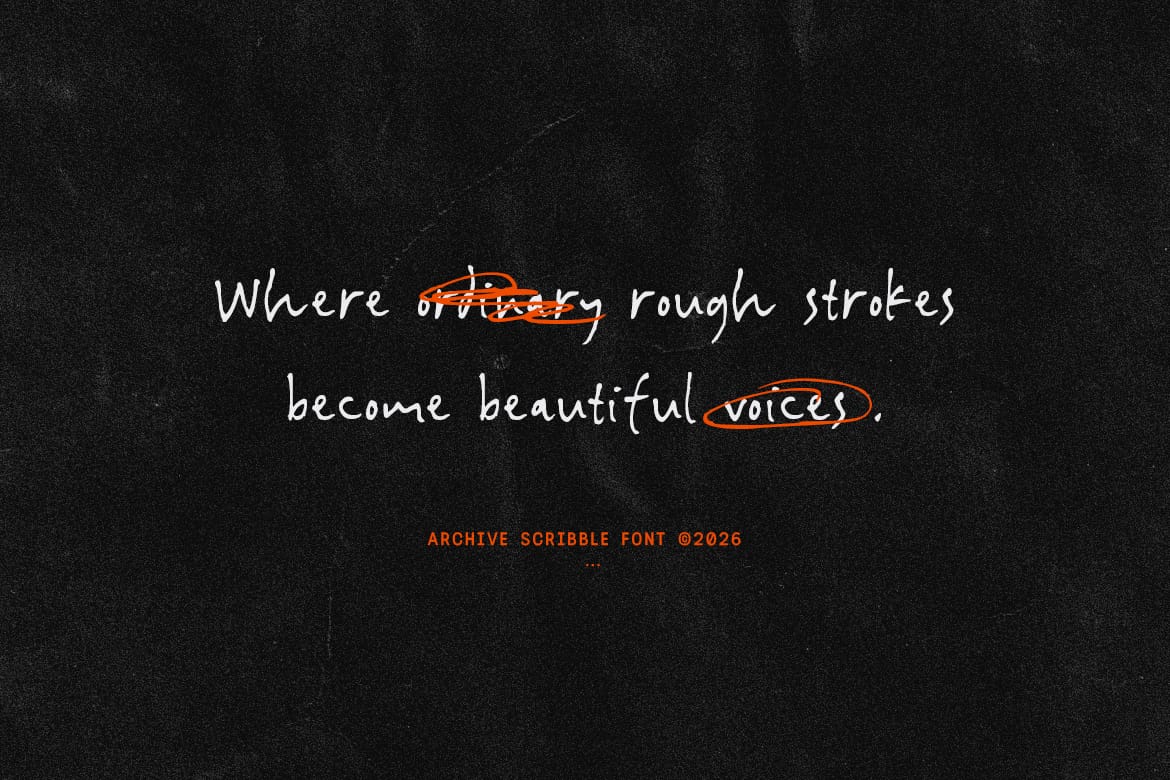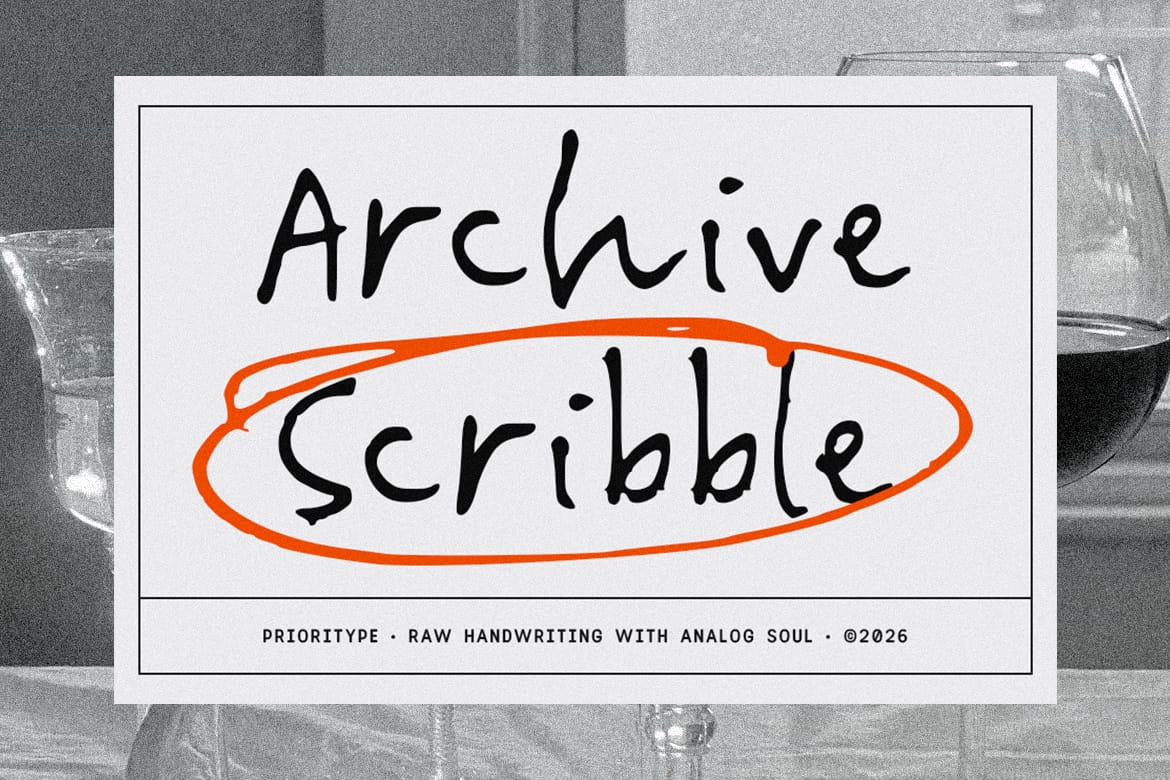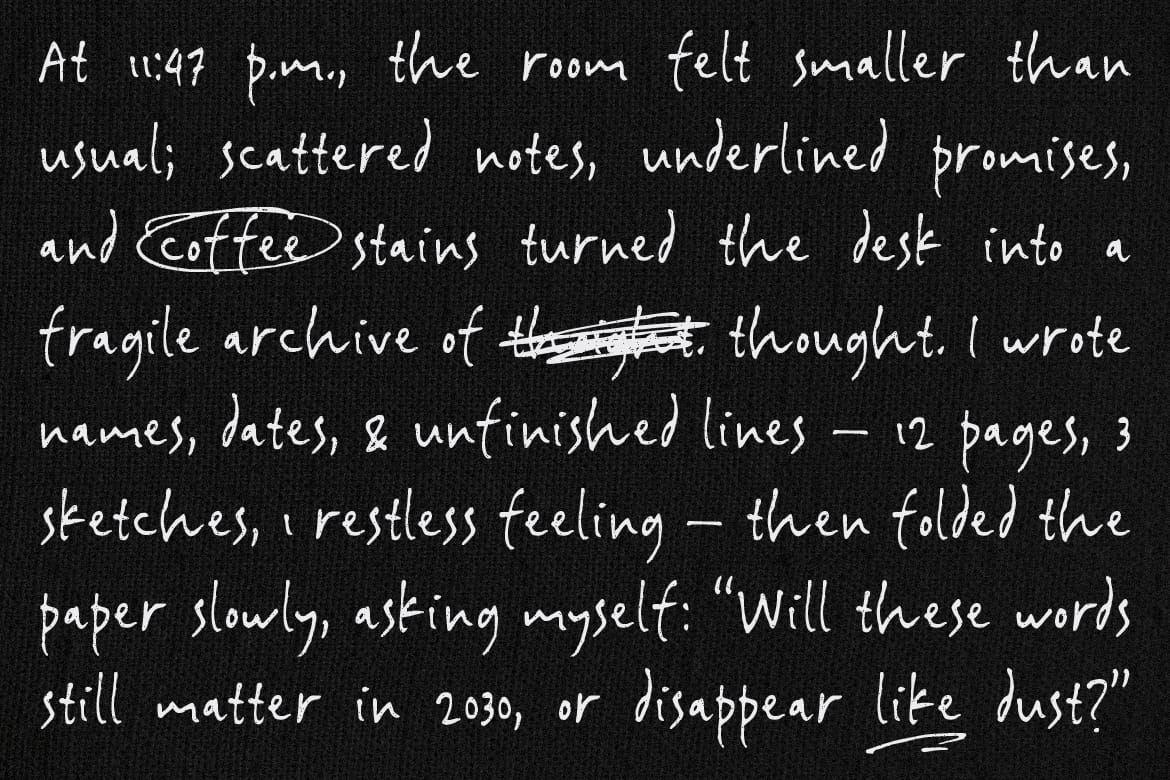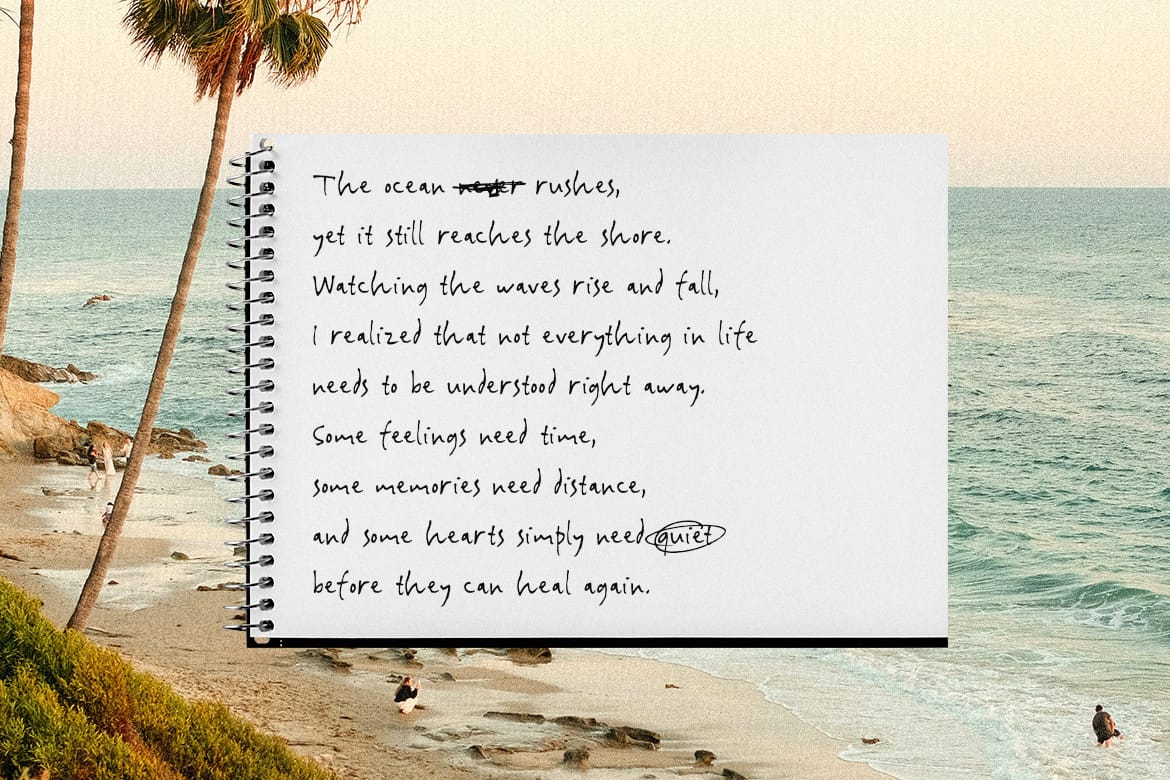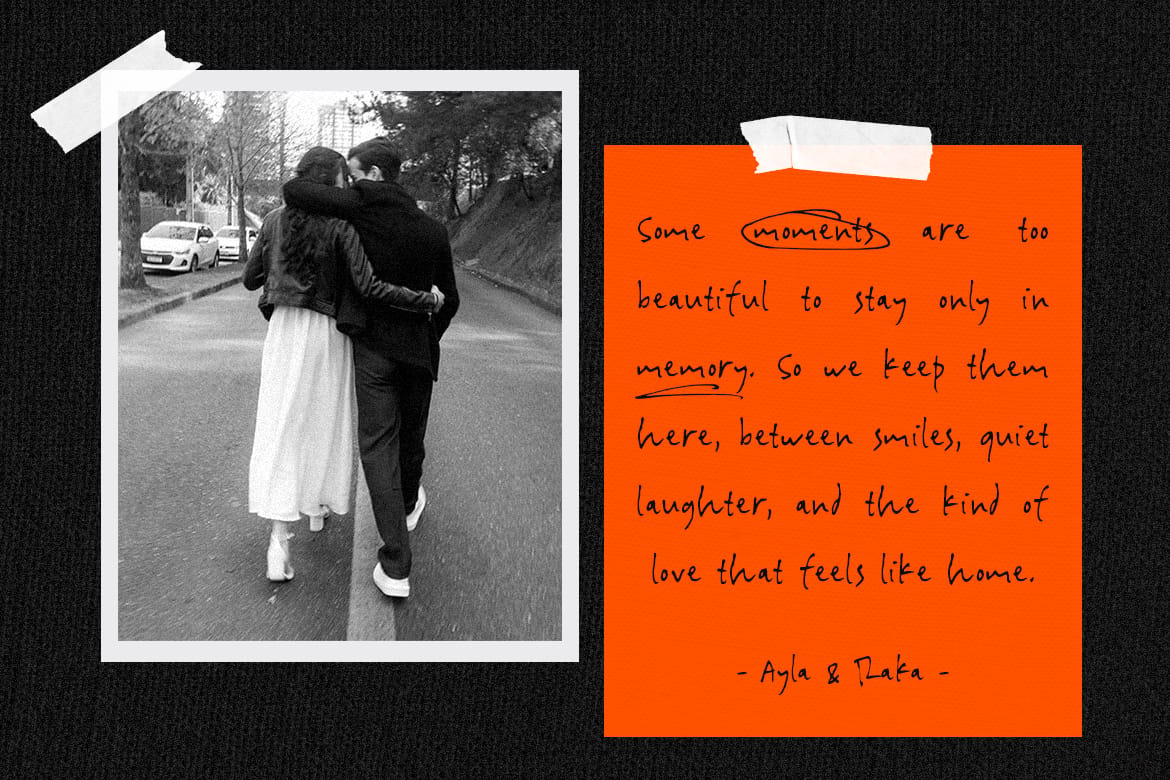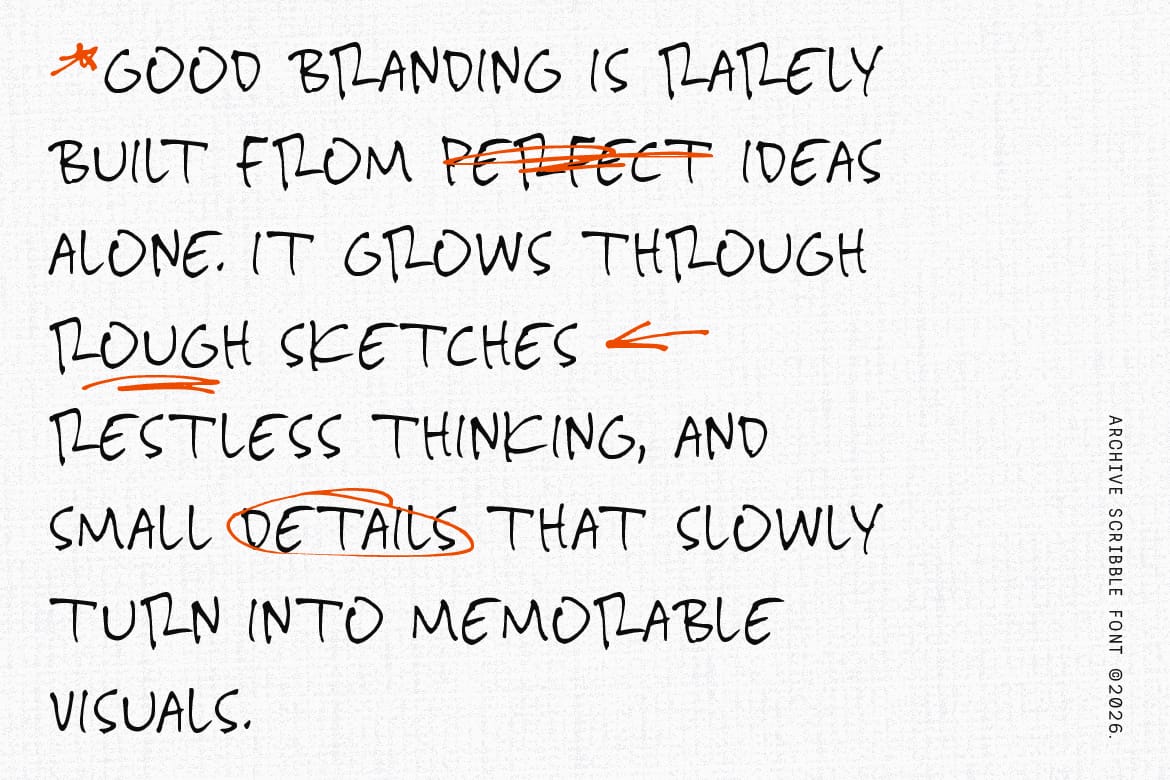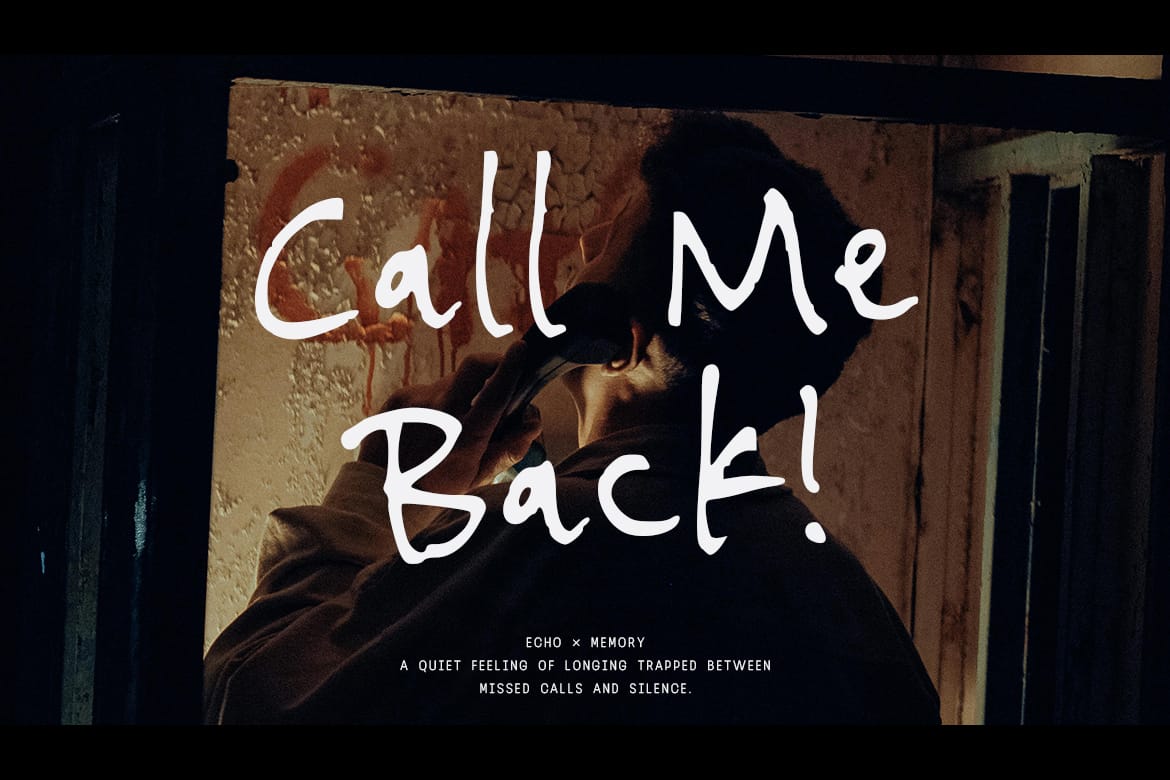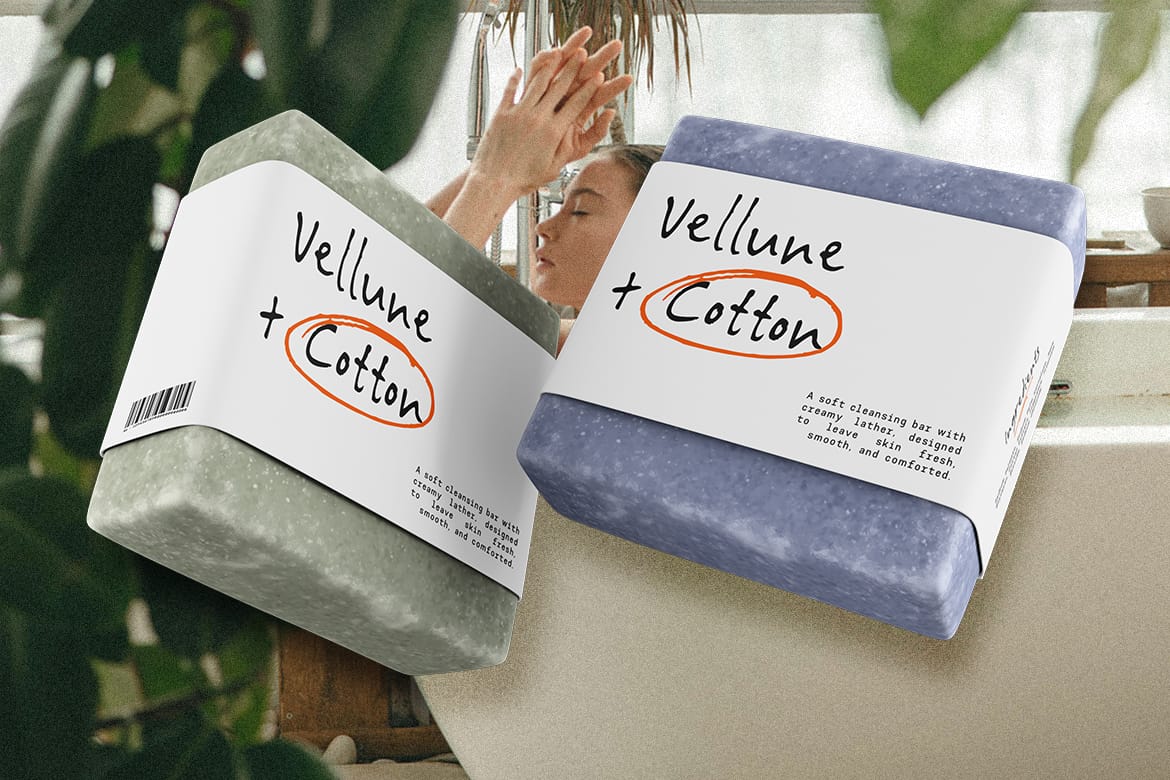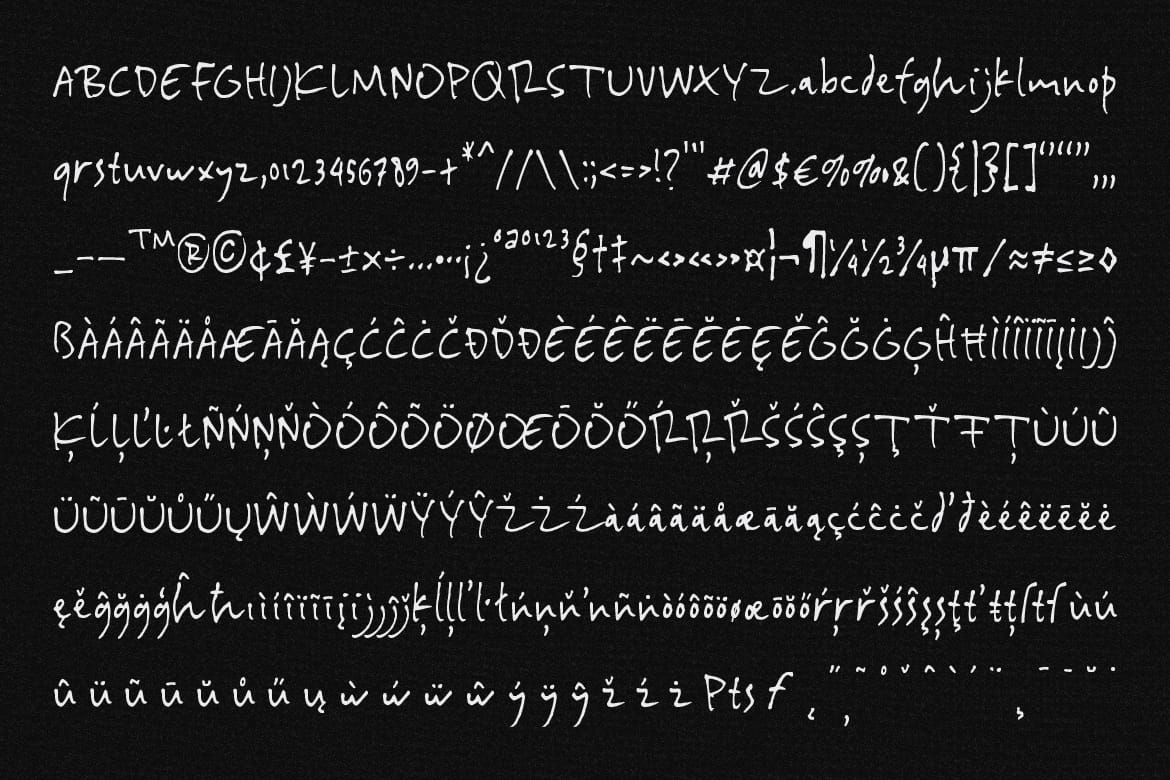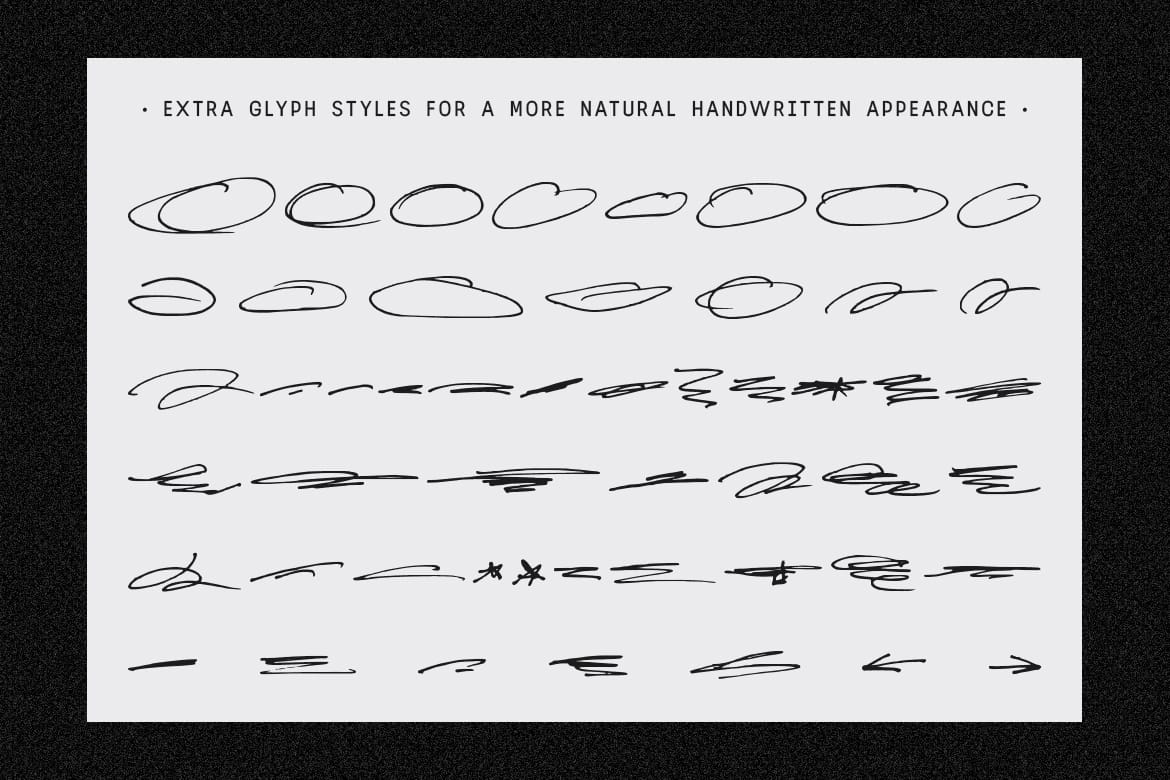
Archive Scribble is a natural handwritten font inspired by authentic pen sketches and spontaneous handwriting. With organic strokes and expressive imperfections, this typeface captures the raw beauty of notes, doodles, and personal writing. Perfect for branding, posters, journals, social media, packaging, and creative projects that need a warm and human touch.